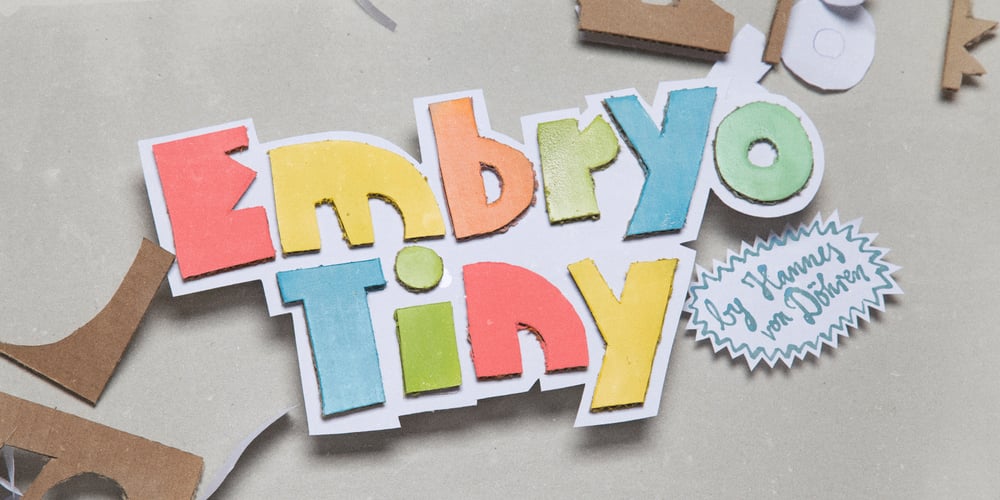
Embryo Tiny
Embryo Tiny font
Embryo Tiny Font Family was designed by Hannes von Döhren and published by HVD Fonts. Embryo Tiny contains 2 styles and family package options. Embryo Tiny based on the Embryo Typefaces Embryo and Embryo Open. In contrast to its big brothers it is way more readable in smaller sizes and on screens. These superheavy cute fonts are perfect for games, children’s books, logos, posters and flyers. Special for the gamers: All numbers have the same width, so it is perfect for highscores. Embryo Tiny has an extended character set to support Central and Eastern European as well as Western European Languages.